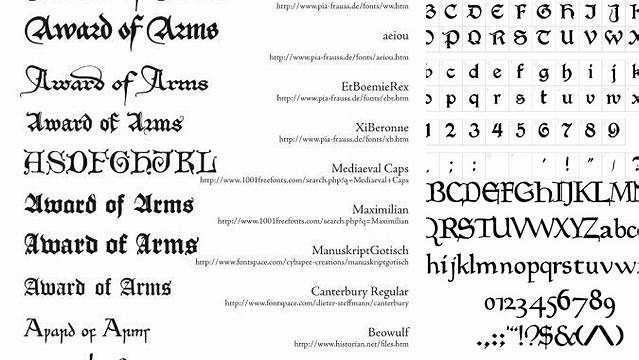
Medieval Fonts In Word: A Guide To Old-World Styles
Are you looking to infuse your documents with a touch of history and old-world charm? Perhaps you're working on a fantasy novel, designing invitations for a themed event, or simply want to add a unique flair to your everyday writing. Whatever your reason, selecting the right medieval looking fonts in Word can significantly enhance the visual appeal and authenticity of your project. This article will delve into the realm of medieval fonts, exploring various options, providing guidance on how to use them effectively in Microsoft Word, and offering tips for ensuring readability and visual harmony. Let's embark on this journey to discover the perfect font to transport your readers back in time!
Understanding Medieval Fonts
Before diving into specific font recommendations, it's crucial to understand what defines a "medieval" font. These fonts often evoke the styles used in illuminated manuscripts, early printed books, and historical documents from the Middle Ages. Key characteristics include:
- Blackletter (Gothic): These fonts are characterized by their dense, angular strokes and dramatic thick-to-thin transitions. They often have a formal and ornate appearance, reminiscent of calligraphy.
- Uncial: Uncial fonts are based on a script that uses rounded, capital-like letters. They are generally more legible than blackletter fonts and offer a softer, more approachable feel.
- Handwritten Styles: Some fonts mimic the look of handwritten scripts from the medieval period, capturing the imperfections and unique character of human penmanship.
When selecting a medieval font, consider the overall tone and purpose of your document. A blackletter font might be suitable for a title or heading, while a more legible uncial or handwritten style could be better for body text. It’s also important to ensure the font is available for commercial use if you intend to use it for professional projects.
Top Medieval Font Choices for Word
Now, let's explore some specific medieval looking fonts that are compatible with Microsoft Word. Keep in mind that font availability may vary depending on your system and installed font packages. However, many excellent options are available for free download or purchase online.
- Old English Text MT: This is a classic blackletter font that comes pre-installed on many Windows systems. It's a bold and dramatic choice, ideal for titles, headings, and creating a sense of historical authenticity. However, due to its intricate design, it's not recommended for large blocks of text.
- Goudy Text: Another popular blackletter option, Goudy Text offers a slightly more refined and legible design than Old English Text MT. It still retains the characteristic thick-to-thin strokes and angular forms but is somewhat easier on the eyes.
- Cloister Black: Cloister Black is a highly decorative blackletter font with elaborate flourishes and intricate details. It's best used sparingly for decorative elements or short headings to add a touch of elegance and grandeur.
- Uncial Antiqua: As the name suggests, Uncial Antiqua is based on the uncial script. It features rounded, easily readable letters and a more approachable feel than blackletter fonts. It's a good choice for body text or longer passages where legibility is paramount.
- Viking: While not strictly a medieval font, Viking captures the spirit of the era with its runic-inspired letterforms. It's a bold and eye-catching choice for titles, headings, or designs with a Norse or Viking theme.
These are just a few examples, and many other excellent medieval fonts are available. Explore different options and experiment to find the perfect font to match your project's aesthetic and purpose.
After installing the fonts, using them in Word is straightforward. You can adjust the font size, color, and other formatting options as you would with any other font. However, keep in mind that some medieval fonts may require larger font sizes to maintain legibility, especially blackletter fonts.
Tips for Effective Use of Medieval Fonts
Using medieval looking fonts effectively requires careful consideration of legibility, context, and visual harmony. Here are some tips to help you make the most of these unique fonts:
Incorporating medieval looking fonts into your Microsoft Word documents can add a unique and captivating touch, transporting your readers to another time and place. By understanding the characteristics of medieval fonts, exploring the available options, and following the tips outlined in this article, you can effectively use these fonts to enhance the visual appeal and authenticity of your projects. Remember to prioritize legibility, use fonts sparingly, and consider the context of your document when making your font selections. With a little experimentation and attention to detail, you can master the art of using medieval fonts and create documents that are both visually stunning and historically evocative. So go ahead, embrace the charm of the Middle Ages and let your creativity flourish! Guys, remember to always check the licensing and happy creating!